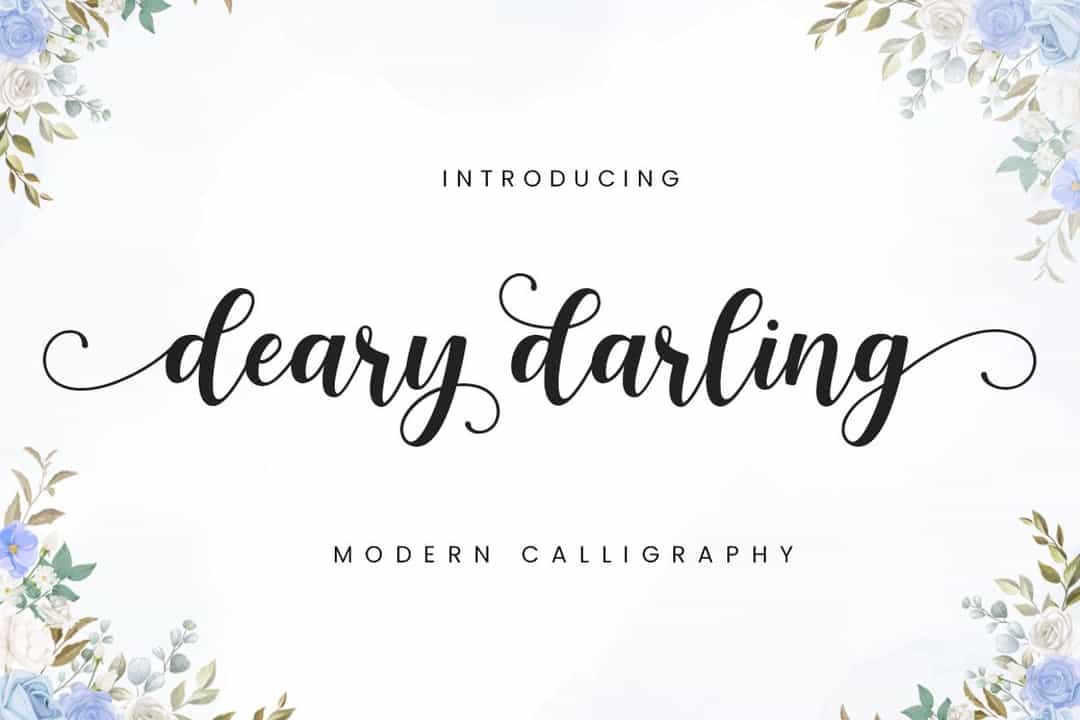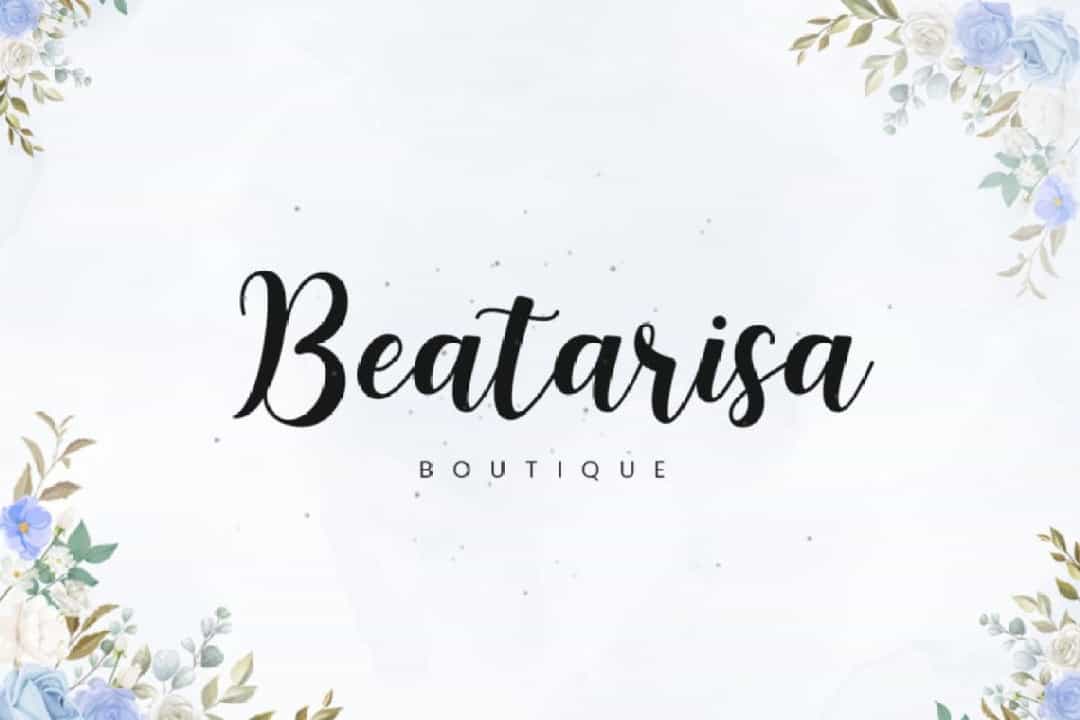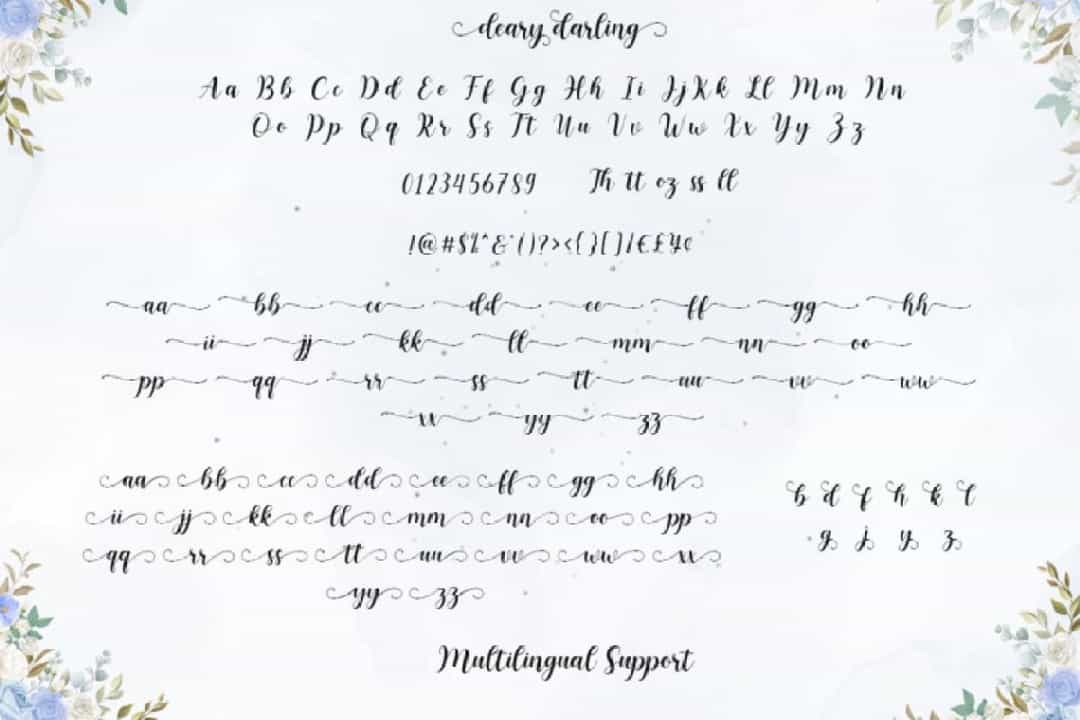
Deary Darling is a classily beautiful modern script font designed by Manjalistudio that radiates elegance. All the fonts have modern calligraphy for your next project that you can incorporate into your work. Deary Darling is a font that can be described as beautiful and elegant and at the same time modern and classy.